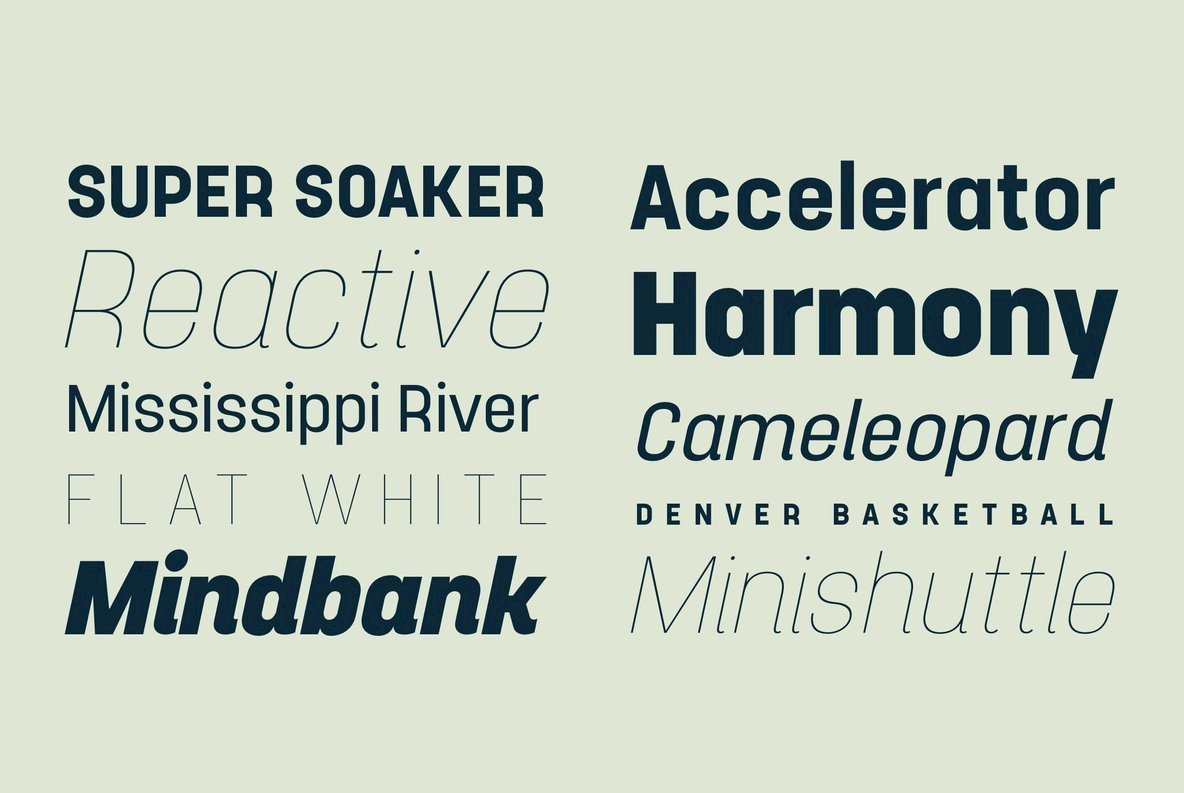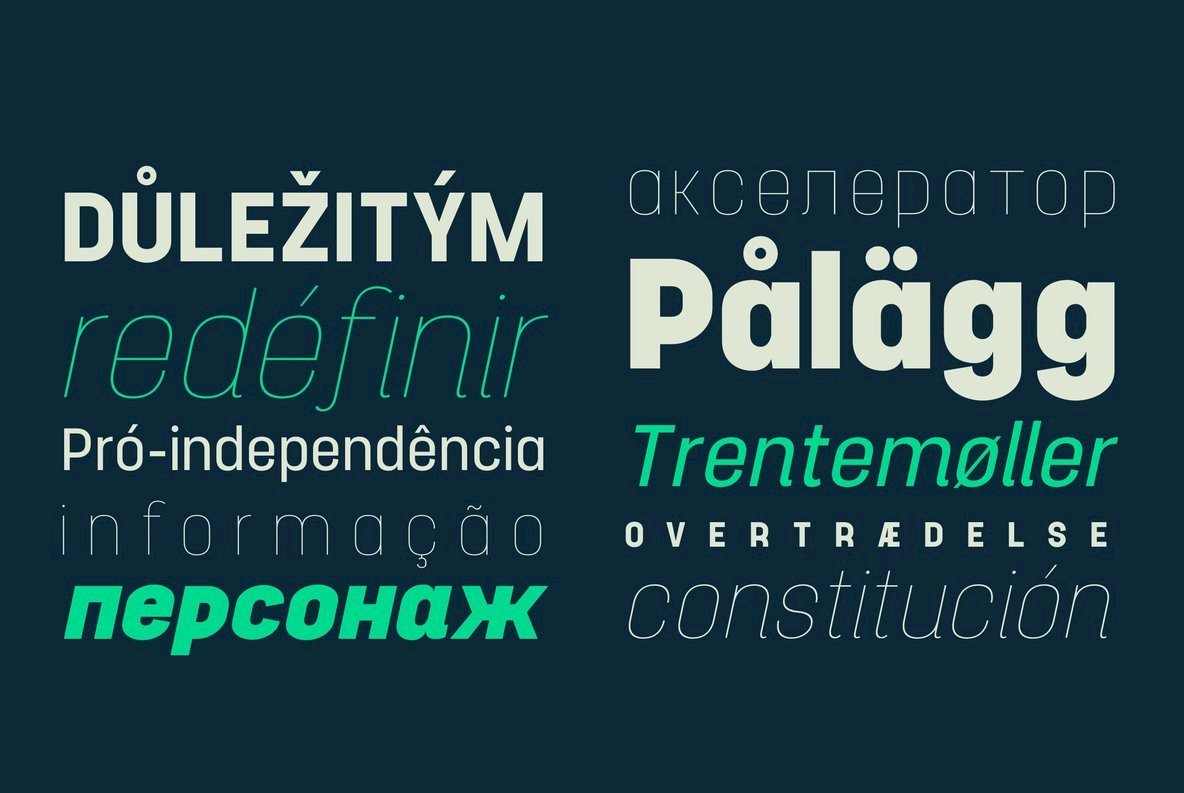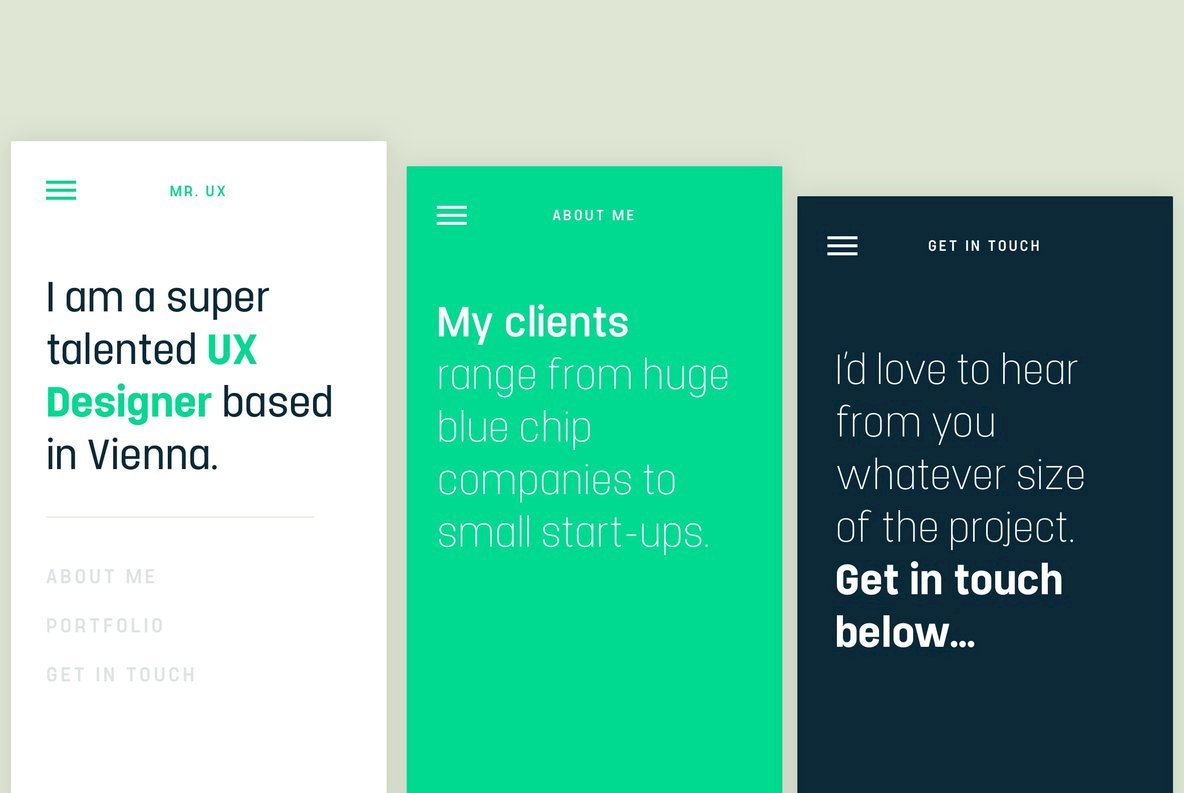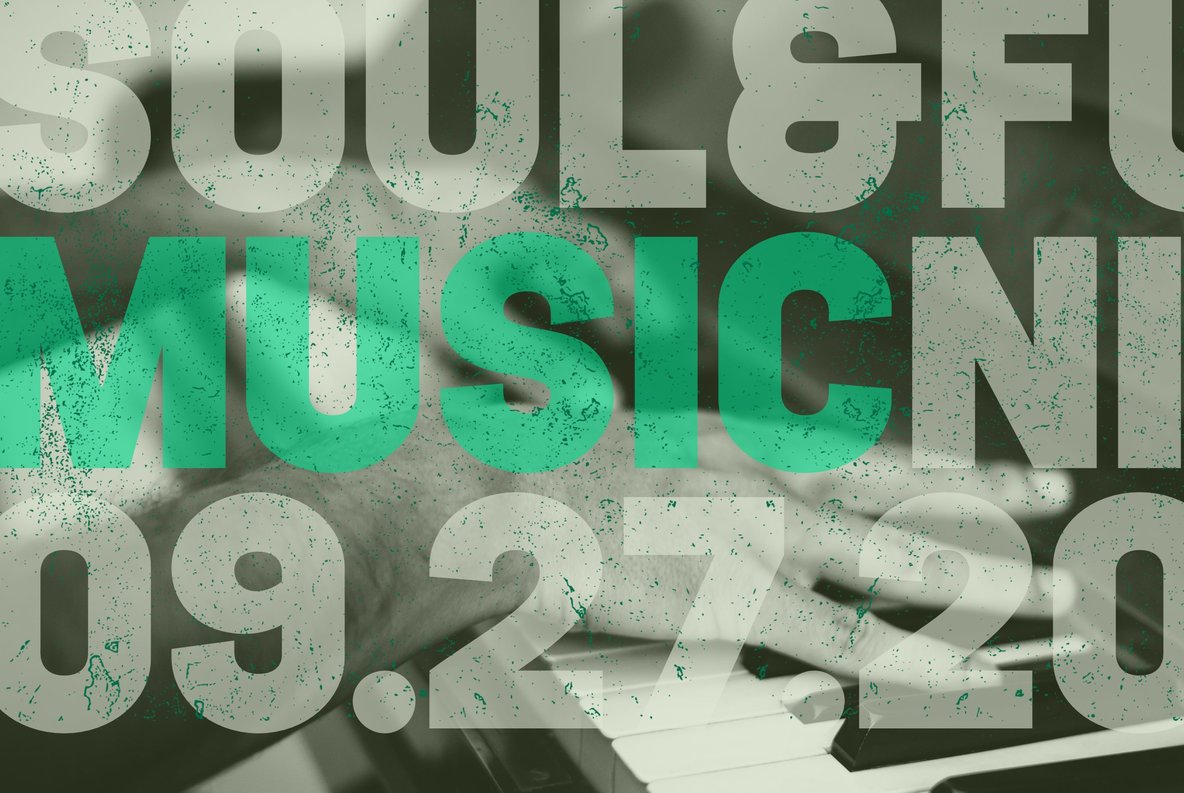
Project Sans Font
Project Sans is a structured and versatile geometric sans serif which includes 10 weights and matching, playful italics that offer a unique feel for multiple applications. The fonts versatility creates a plethora of uses from branding and advertising to digital applications such as websites and apps. Project Sans has support for Central and Eastern European languages as well as Cyrillic.
The font has a slight retro poster feel mixed with a uniform structure that, mixed with its substantial weight options and warm italics, creates a suite of fonts that can be used for anything your Project requires.